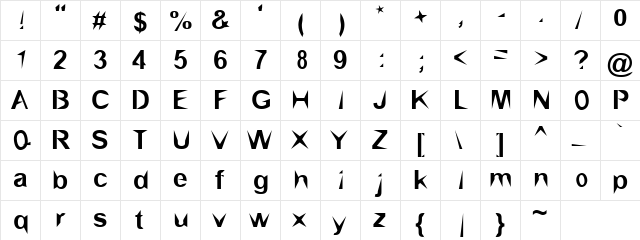
Pinacle Top 44 Regular
Design Context for Pinacle Top 44 Typeface
Pinacle Top 44 is a composed and adaptable typeface that performs quietly and consistently across a wide range of design contexts.